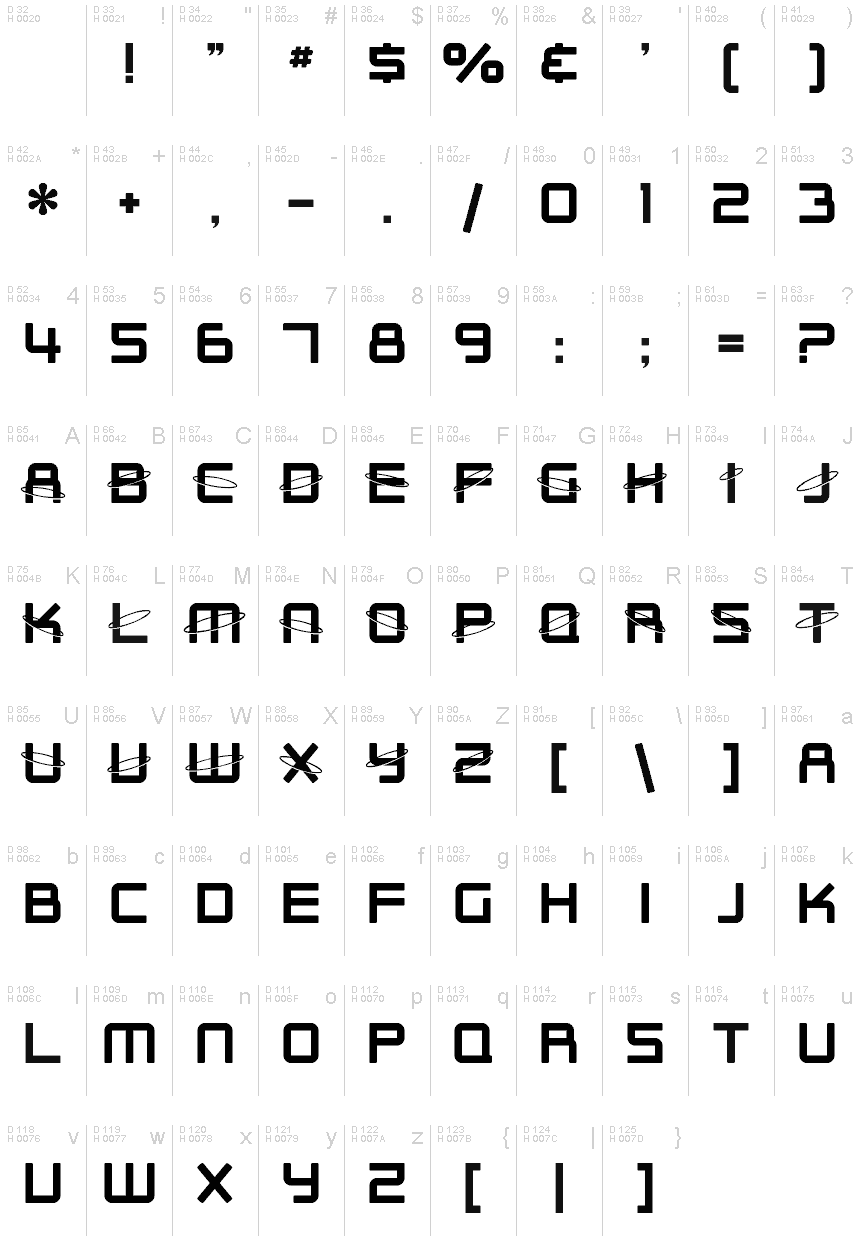
SF Outer Limits Upright
SF Outer Limits Upright is a captivating display font that pushes the boundaries of typography. Designed by ShyFonts Type Foundry, this font stands out with its unique futuristic style and expanded width.
With its distinct characteristics, SF Outer Limits Upright offers endless creative possibilities in various projects. Its bold and attention-grabbing appeal makes it perfect for eye-catching logos, posters, and headlines. Whether you're designing for technology, science fiction, or any forward-thinking subject matter, this font effortlessly captures the essence of the future.
The expanded width of SF Outer Limits Upright adds a sense of dynamism and movement to your designs. It breaks free from convention, enabling you to create striking visuals that capture attention instantly. From bold ad campaigns to cutting-edge websites, this font's versatility knows no bounds.
Embrace the limitless potential of SF Outer Limits Upright and let your creativity soar in diverse creative projects that demand a futuristic touch.
With its distinct characteristics, SF Outer Limits Upright offers endless creative possibilities in various projects. Its bold and attention-grabbing appeal makes it perfect for eye-catching logos, posters, and headlines. Whether you're designing for technology, science fiction, or any forward-thinking subject matter, this font effortlessly captures the essence of the future.
The expanded width of SF Outer Limits Upright adds a sense of dynamism and movement to your designs. It breaks free from convention, enabling you to create striking visuals that capture attention instantly. From bold ad campaigns to cutting-edge websites, this font's versatility knows no bounds.
Embrace the limitless potential of SF Outer Limits Upright and let your creativity soar in diverse creative projects that demand a futuristic touch.